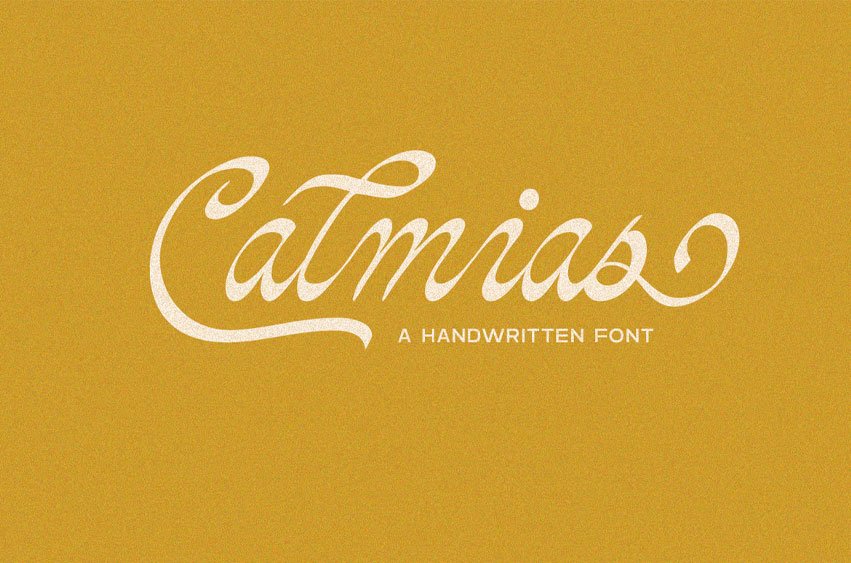
Calmias Font is a beautifully handcrafted script font created to elevate your creative projects with a touch of elegance and personality. Its soft curves, flowing baseline, and expressive handwritten style make it ideal for modern branding, personal signatures, product packaging, and social media content.
Whether you’re building a high-end brand or creating digital graphics, Calmias delivers a timeless handwritten look that feels warm, and unforgettable.
- Full set of uppercase & lowercase letters
- Swashes & stylistic alternates (jika ada)
- Numerals & punctuation